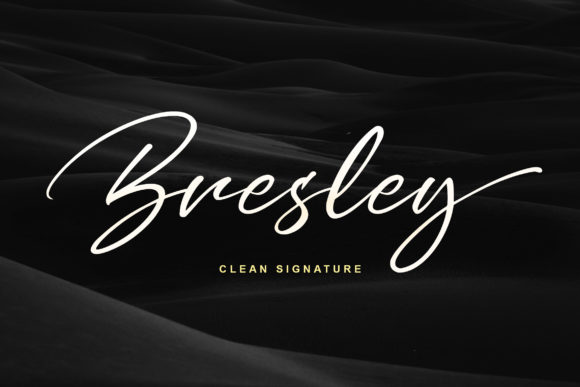
Indulge in the captivating charm of Bresley Font, a captivating script that embodies the essence of contemporary elegance. Crafted with meticulous care by Blankids Studio, this font boasts an array of bold and authentic swashes, promising to transform your designs into works of art.
With its undeniable flair and versatility, Bresley Font effortlessly adapts to a myriad of projects, from heartfelt invitations to vibrant branding. Immerse yourself in a world of creativity as you witness your words dance across the page with an unmatched allure.
Unleash your imagination and envision the possibilities that await you with Bresley Font. Elevate your designs to new heights of sophistication and captivate your audience with a touch of undeniable style.
Embrace the power of Bresley Font today and embark on an extraordinary creative journey. Allow its captivating essence to inspire your designs and leave an everlasting impression on all who behold your creations.